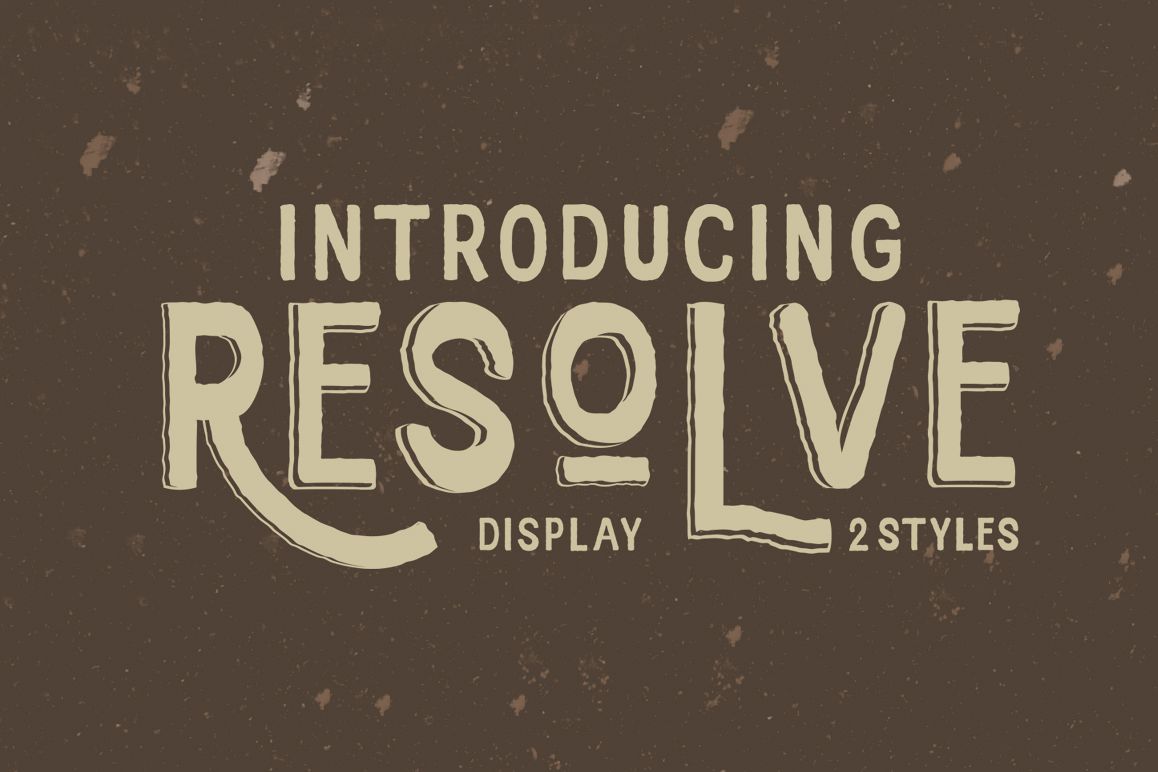
Resolve Font
Resolve is 2 font styles with alternative characters, very suitable as to make a design choice for magazines, packaging, branding , website header, posters, greeting cards, letterhead, and many more other creative project.